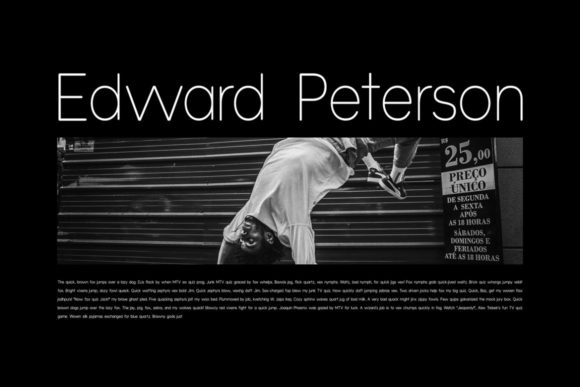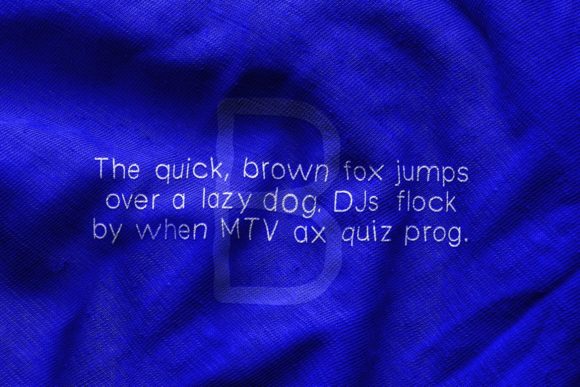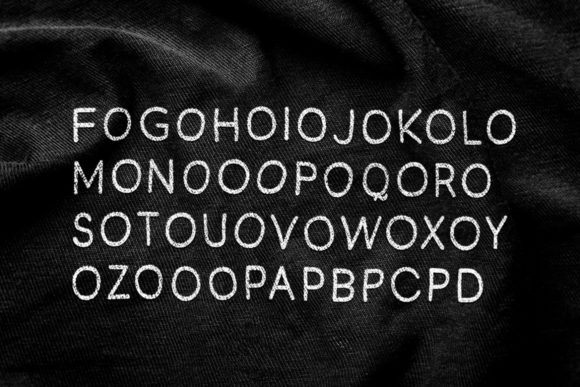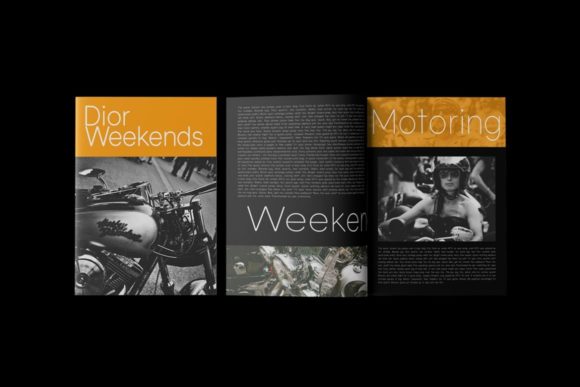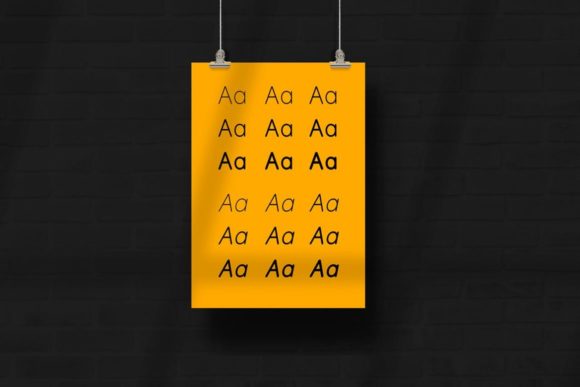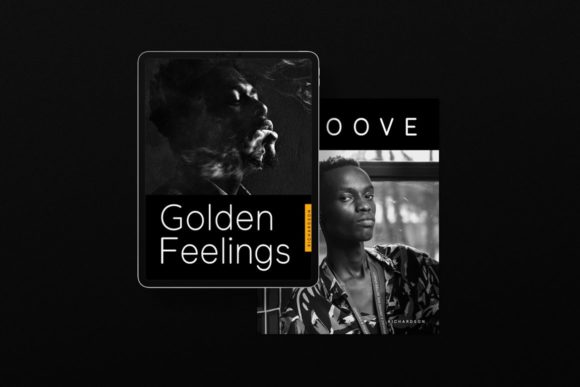
Introduction to Olivette Font
Olivette is a cool and modern sans serif font.
It is perfect for product packaging, branding project, magazine covers, social media, wedding, or just used to express words above the background .
Key Features of Olivette Font